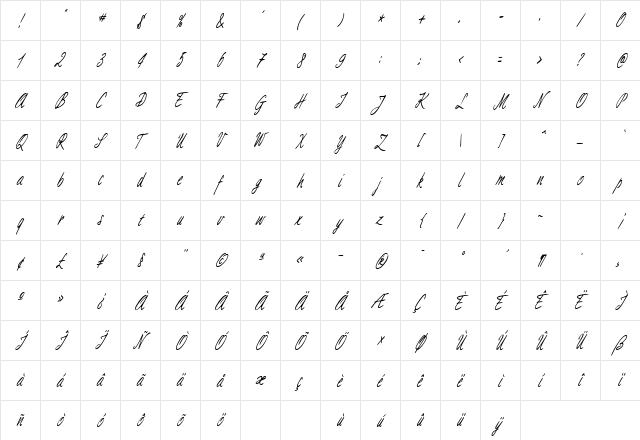
AimeeCondensed Italic
AimeeCondensed Family
Design Context for AimeeCondensed
AimeeCondensed is a composed and adaptable typeface that performs quietly and consistently across a wide range of design contexts. The slanted form adds forward momentum and visual energy. Its narrow stance lets it pack a punch even in space-constrained designs.